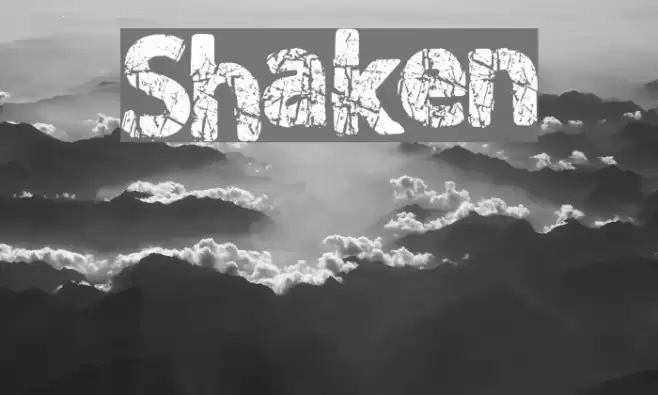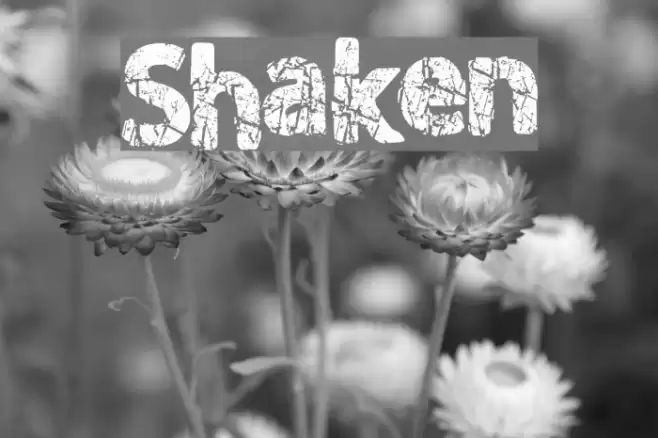
Shaken Font
Shaken Description
This font features a distressed, grunge style with a textured appearance that gives it a worn and rugged look. The characters are bold and impactful, with a rough, uneven surface that suggests a sense of age and weathering. The uppercase and lowercase letters maintain a consistent style, with rounded edges and a substantial presence. Numbers and special characters follow the same design, ensuring uniformity across all elements. This font is ideal for projects that require a gritty, urban aesthetic, such as music album covers, posters, or branding for edgy products.
A bold, distressed font with a grunge texture and rugged appearance from Fancy fonts.
- Font: Shaken
- Proposed Projects: Ideal for music album covers, posters, edgy branding, and urban-themed designs.
- Overall Style: Grunge, Urban, Distressed